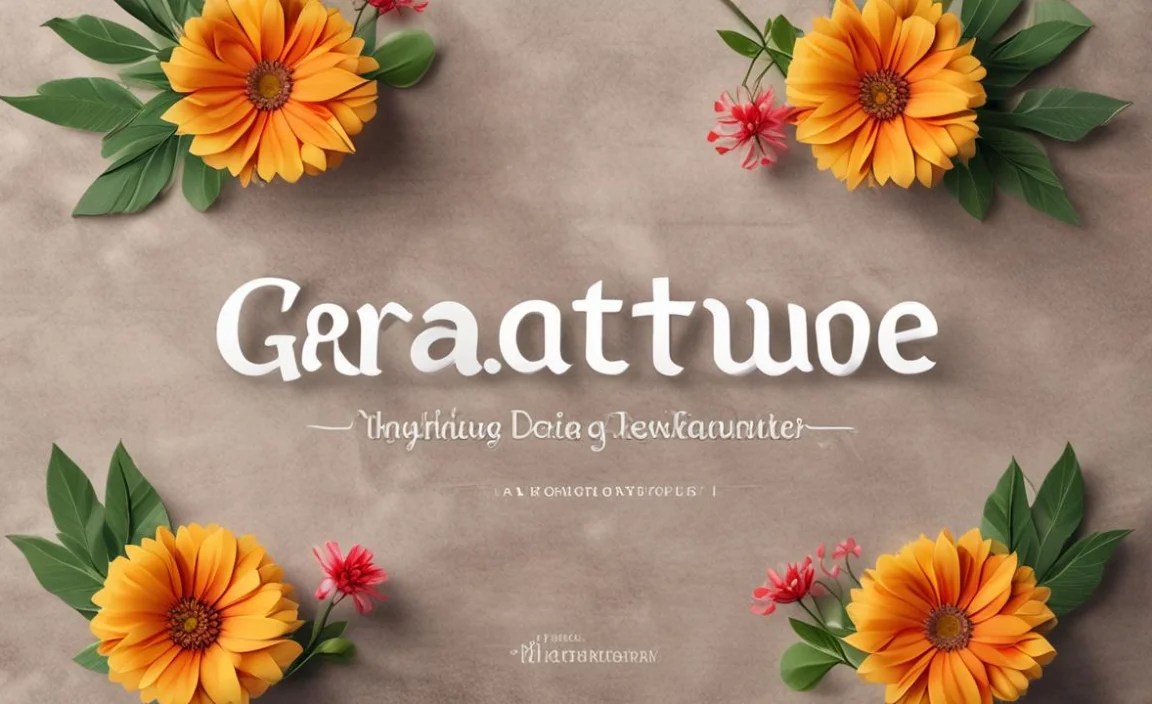
A “Gratitude Font” is any typeface that evokes feelings of warmth, sincerity, and appreciation. It’s often characterized by gentle curves, a friendly flow, and a clear, approachable style, making it perfect for expressing heartfelt thanks in a visually pleasing way. Choosing the right font can amplify your message of gratitude.
Ever found yourself staring at a blank screen, wondering how to write that perfect thank-you note? You want it to feel special, sincere, and truly convey your appreciation, but the words just aren’t flowing. Or perhaps you’re designing a greeting card, a social media post, or even a website landing page, and you need a font that just feels thankful. It’s a common design puzzle: how do you select a typeface that communicates warmth and gratitude effectively? Don’t worry, it’s simpler than you think! We’ll explore how to choose and use fonts that speak volumes of your thankfulness, making your message shine. Get ready to discover the secret power of the “Gratitude Font” and how it can elevate your expressions of thanks.
Understanding the “Gratitude Font” Concept
When we talk about a “Gratitude Font,” we’re not referring to a single, specific font named “Gratitude.” Instead, it’s a concept—a way of thinking about typefaces that evoke certain emotions and sentiments. Think of it as a mood board for your words. Certain font styles are naturally better suited for expressing thankfulness, warmth, and sincere appreciation than others. These fonts often feel friendly, approachable, and personal. They can soften harsh lines, add a touch of elegance, or bring a gentle sincerity to your message. The goal is to select typography that complements the heartfelt sentiment you wish to convey, making your thanks feel genuine and impactful.
Why Fonts Matter for Expressing Gratitude
Imagine receiving a thank-you card. If it’s written in a stark, blocky, and impersonal font, it might feel cold, even if the words are kind. But if that same message is in a flowing, elegant script or a warm, rounded sans-serif, it instantly feels more personal and heartfelt. Fonts have a powerful psychological impact on how we perceive information and emotion. They are silent communicators.
- Emotional Connection: Certain font styles can trigger feelings of comfort, joy, and appreciation.
- Perceived Sincerity: A well-chosen font can make your message feel more genuine and less like a generic statement.
- Aesthetic Appeal: A beautiful font makes your message visually pleasing, encouraging the recipient to engage more deeply.
- Brand Personality: For businesses, using gratitude fonts in customer communications can enhance brand image and customer loyalty.
In essence, a “Gratitude Font” is a tool that helps your thanks resonate more deeply. It’s about pairing the right visual style with the right emotion.
Characteristics of a Gratitude-Evoking Font
So, what makes a font feel “grateful”? It’s a combination of subtle design elements. While there’s no one-size-fits-all answer, certain characteristics tend to work wonders. These are the visual cues that our brains associate with warmth, softness, and positive emotion.
Key Font Traits
- Soft, Rounded Edges: Fonts with smooth, rounded terminals (the ends of strokes) feel less harsh and more inviting. Think of a gentle curve versus a sharp, pointed angle.
- Organic, Flowing Lines: Especially in script fonts, a natural, cursive-like flow can mimic the warmth of handwriting, making it feel personal and sincere.
- Slightly Wider Proportions: Fonts that are a bit wider and more open can feel more relaxed and approachable.
- Legibility is Paramount: While style is important, a gratitude font must still be easy to read. Overly decorative or complex fonts can detract from the message.
- Warmth and Friendliness: This is more of an overall impression. Does the font feel approachable, kind, and welcoming?
Let’s look at different font categories and how they can embody these traits.
Serif Fonts for Grace and Warmth
Serif fonts have small lines or strokes (serifs) attached to the end of larger strokes in a letter. When these serifs are well-designed, they can add a touch of elegance and tradition, which can translate beautifully into gratitude.
- Classic & Elegant Serifs: Fonts like Garamond or Palatino, with their subtle curves and refined serifs, can lend a sense of timeless sincerity.
- Soft-Edged Serifs: Some modern serif fonts feature softer, less rigid serifs that enhance readability and add a touch of warmth.
A well-chosen serif font can feel sophisticated yet deeply heartfelt, perfect for more formal expressions of thanks or for designs that aim for an enduring, classic appeal.
Sans-Serif Fonts for Modern Friendliness
Sans-serif fonts, meaning “without serifs,” are known for their clean, modern look. This doesn’t mean they can’t be warm! Many sans-serifs are designed with rounded terminals and open counters (the enclosed or partially enclosed areas in letters) that make them incredibly friendly and approachable.
- Rounded Geometric Sans-Serifs: Think of fonts like Quicksand or Nunito. Their consistently rounded letterforms exude a playful, gentle, and optimistic vibe – perfect for cheerful thanks.
- Humanist Sans-Serifs: Fonts like Open Sans or Lato are designed with the proportions of handwriting in mind, making them feel more natural and less mechanical. This makes them excellent for conveying genuine appreciation in digital contexts.
Q5: Are there any fonts that are specifically designed to evoke gratitude?
While no font is officially “designed for gratitude,” many fonts are created with characteristics that align with it: warmth, friendliness, gentleness, and approachability. Look for fonts described as “humanist,” “rounded,” “soft,” or those that mimic friendly handwriting.